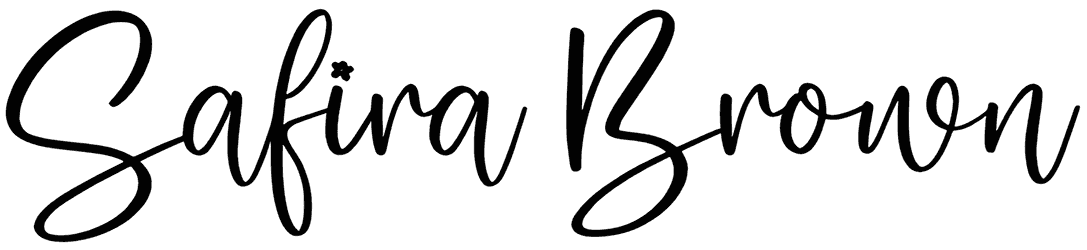
Safira Brown Font
Safira Brown has a kind of elasticity that can throw you into the classy world by participating in any modern project. This script font is one of the artistic fonts that gives you a fun sense of human characters and has letters with a lively identity.
This handwritten font with its two different styles can leave a strong work of art from you on wedding cards, friendly writings, and tattoos.